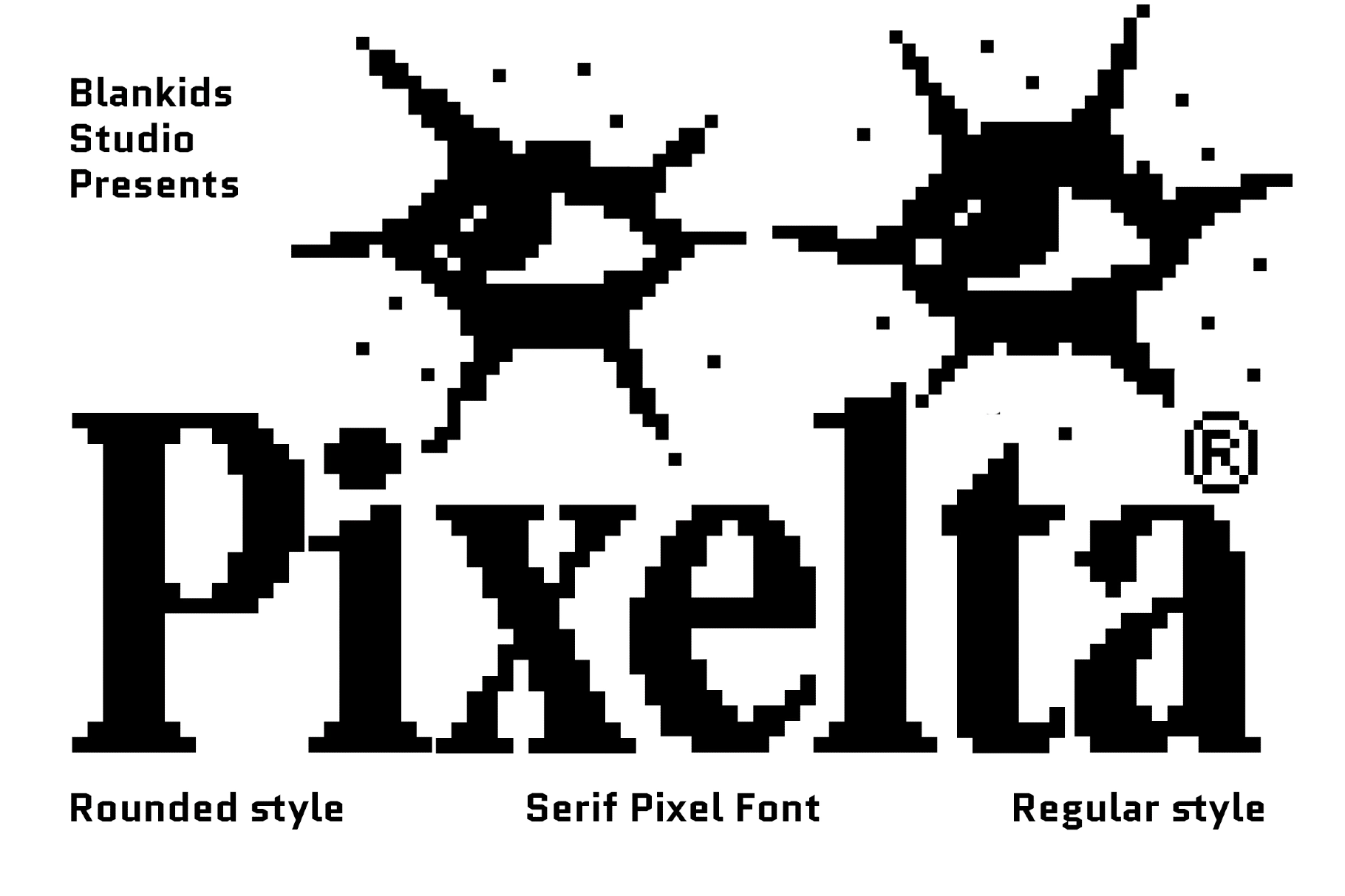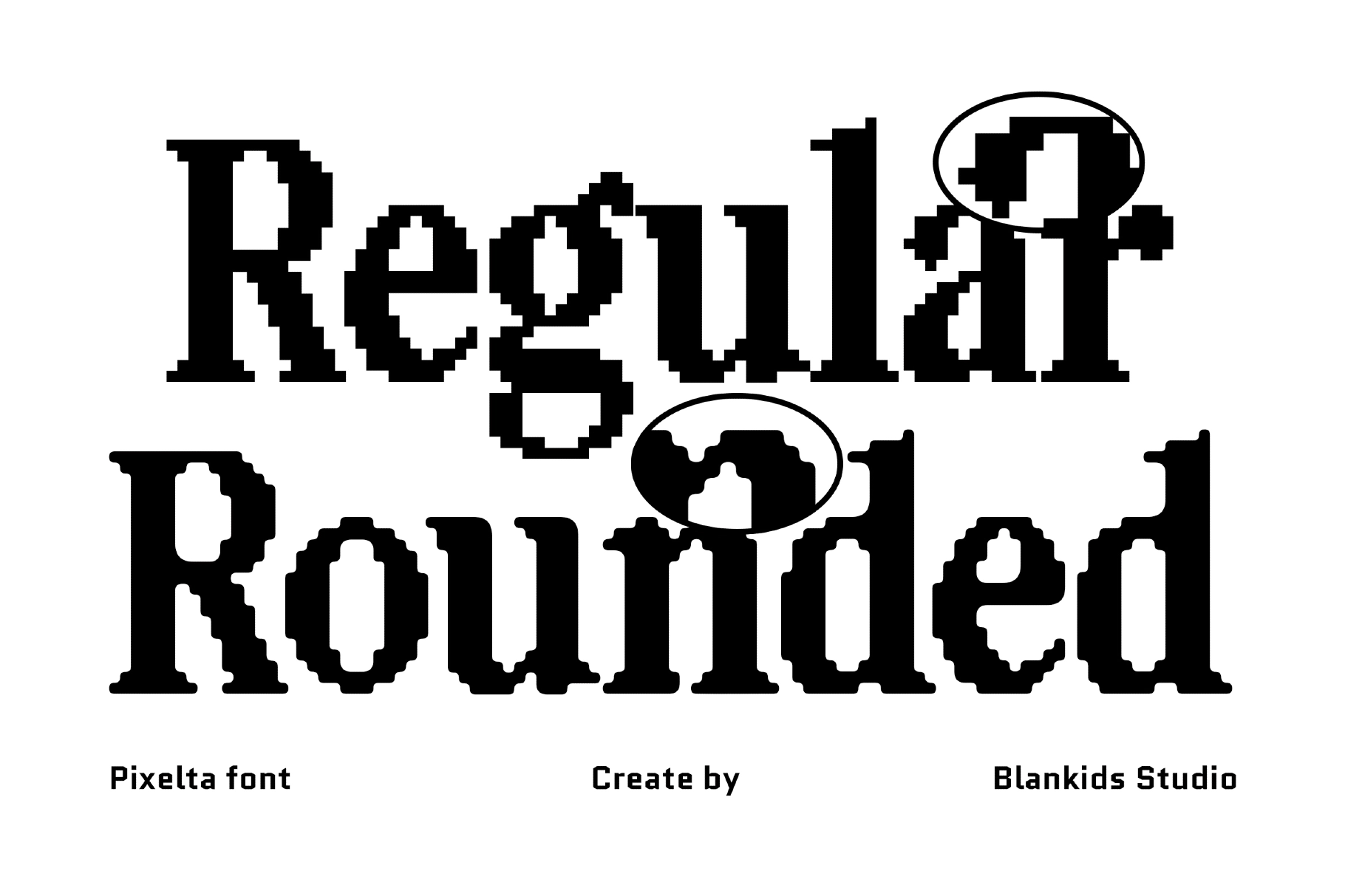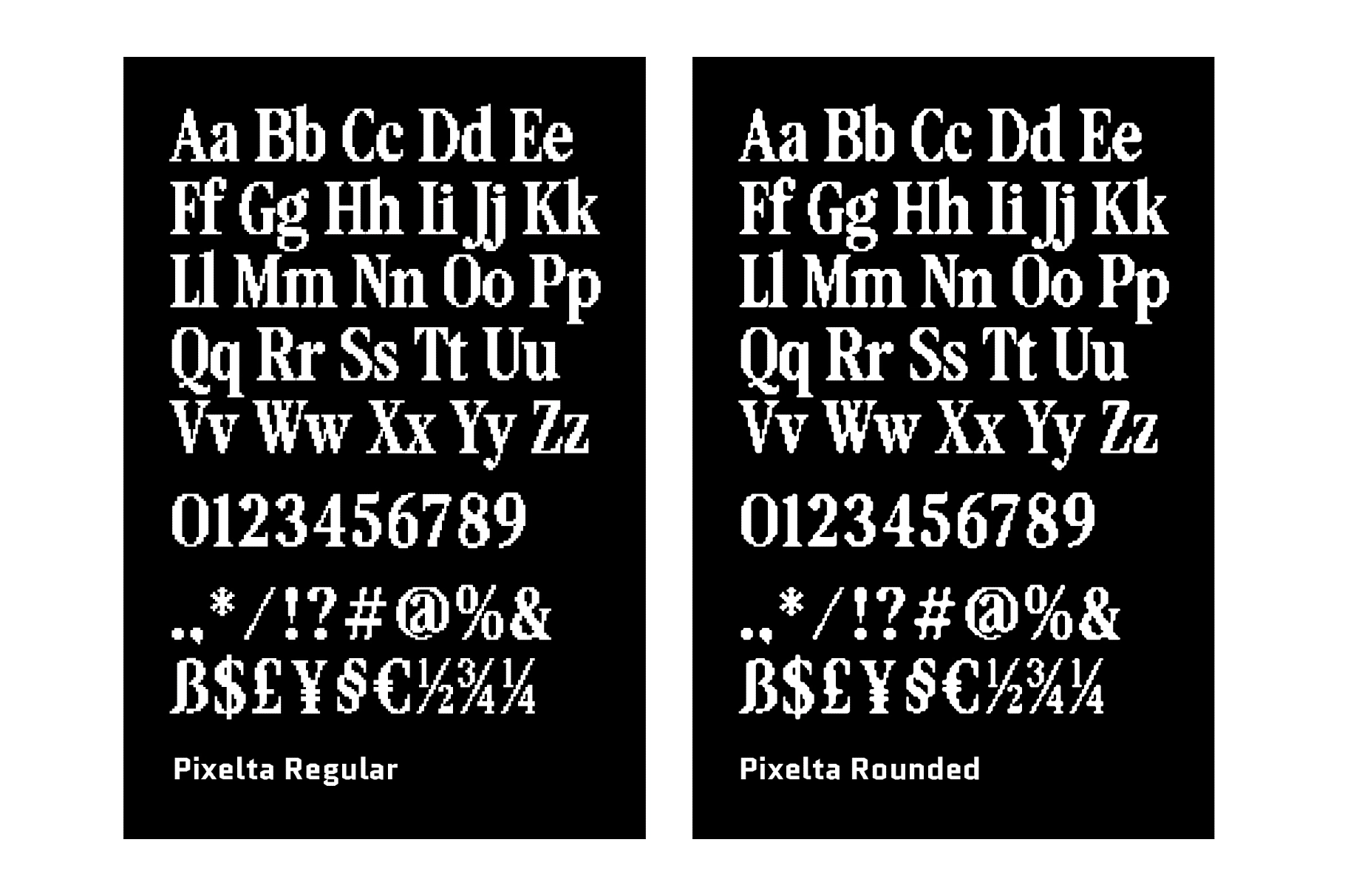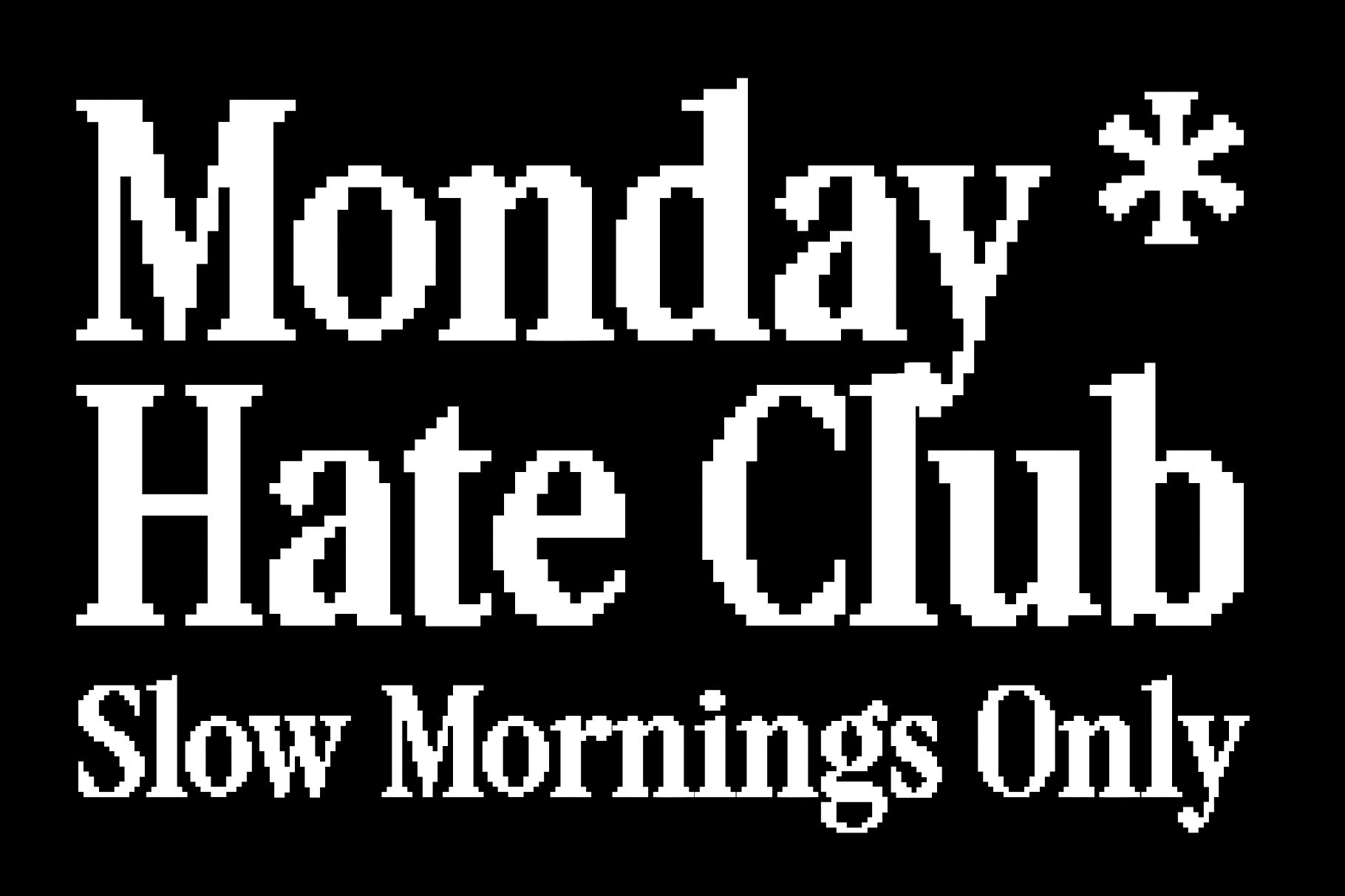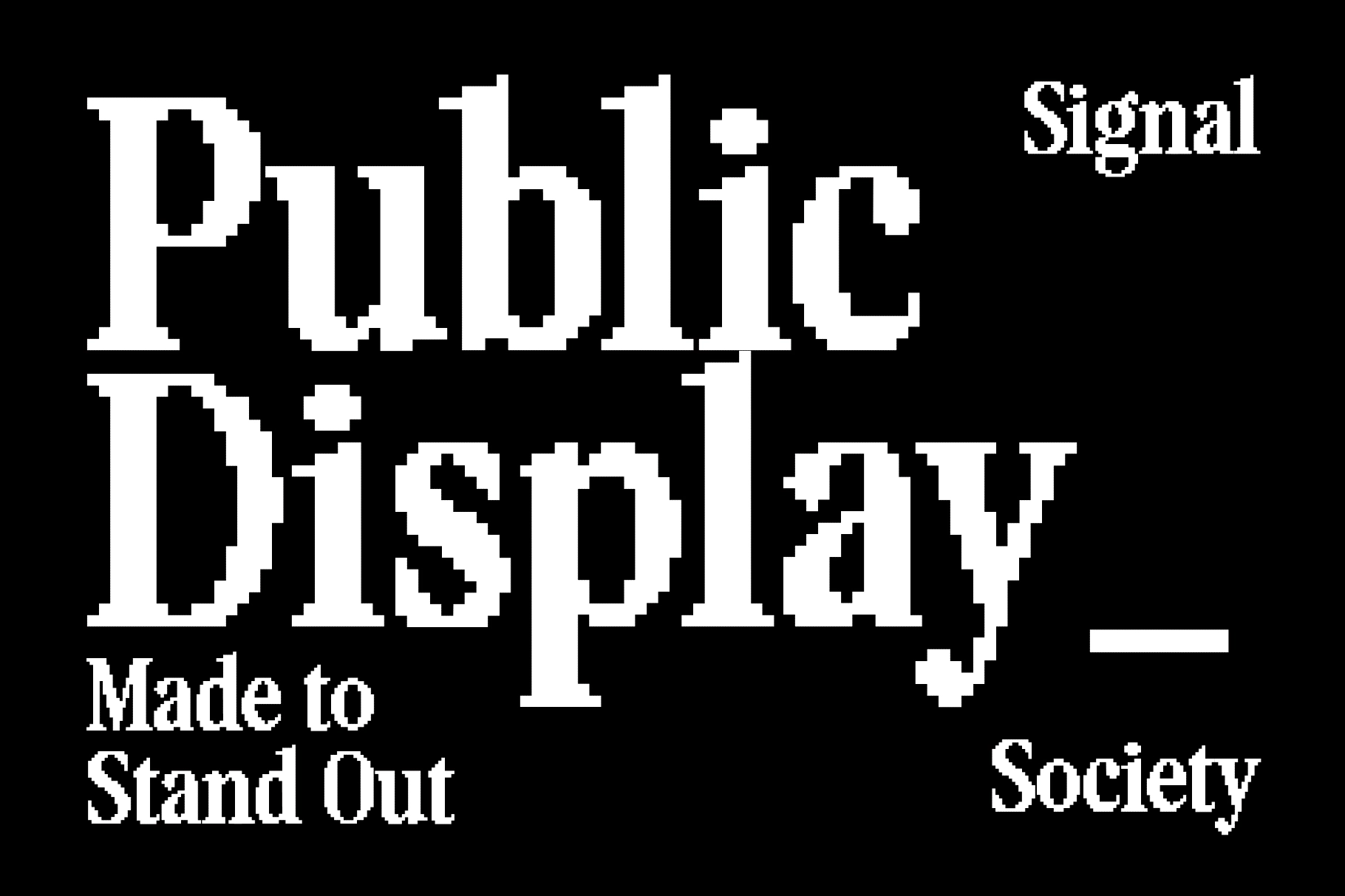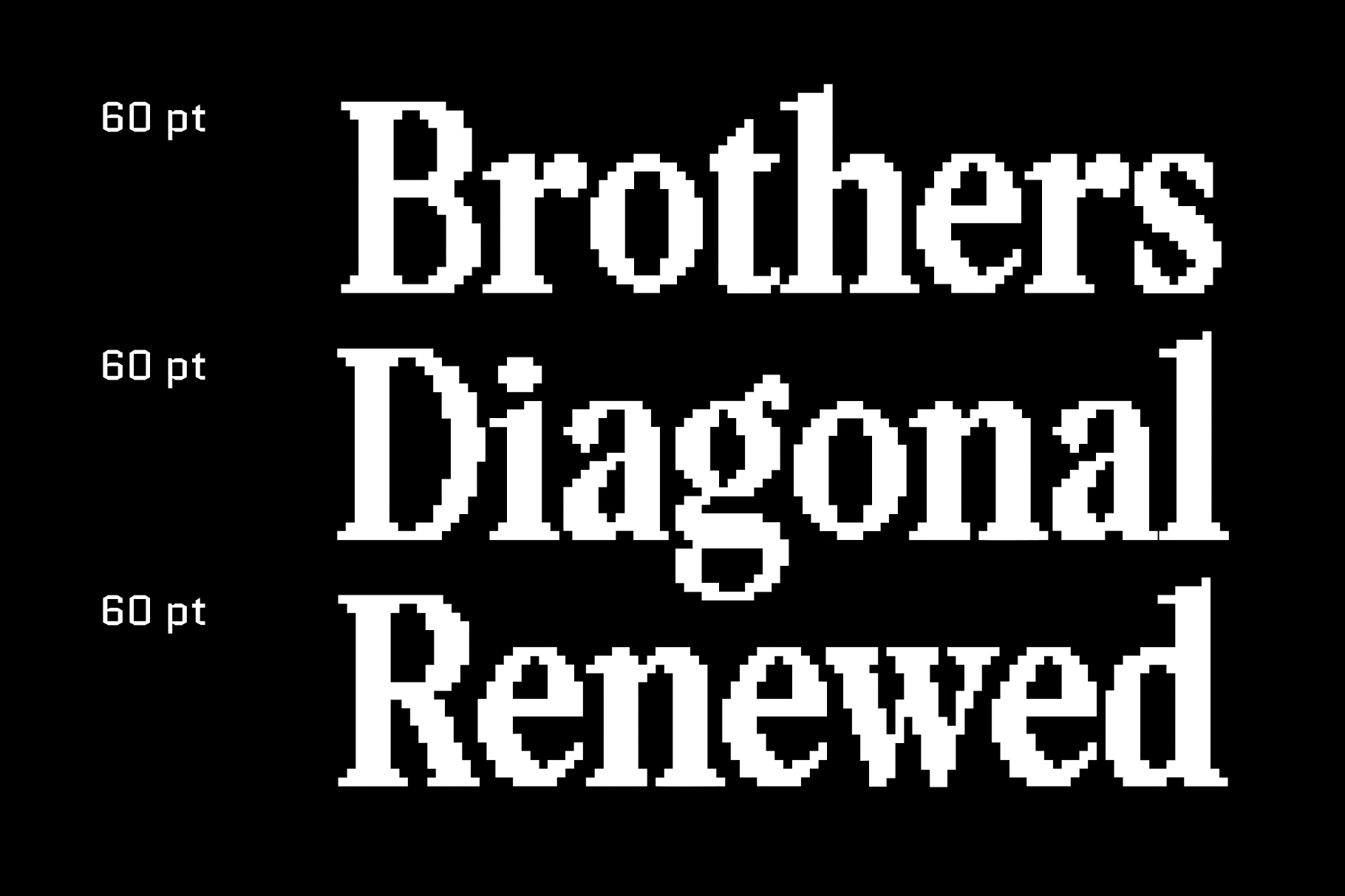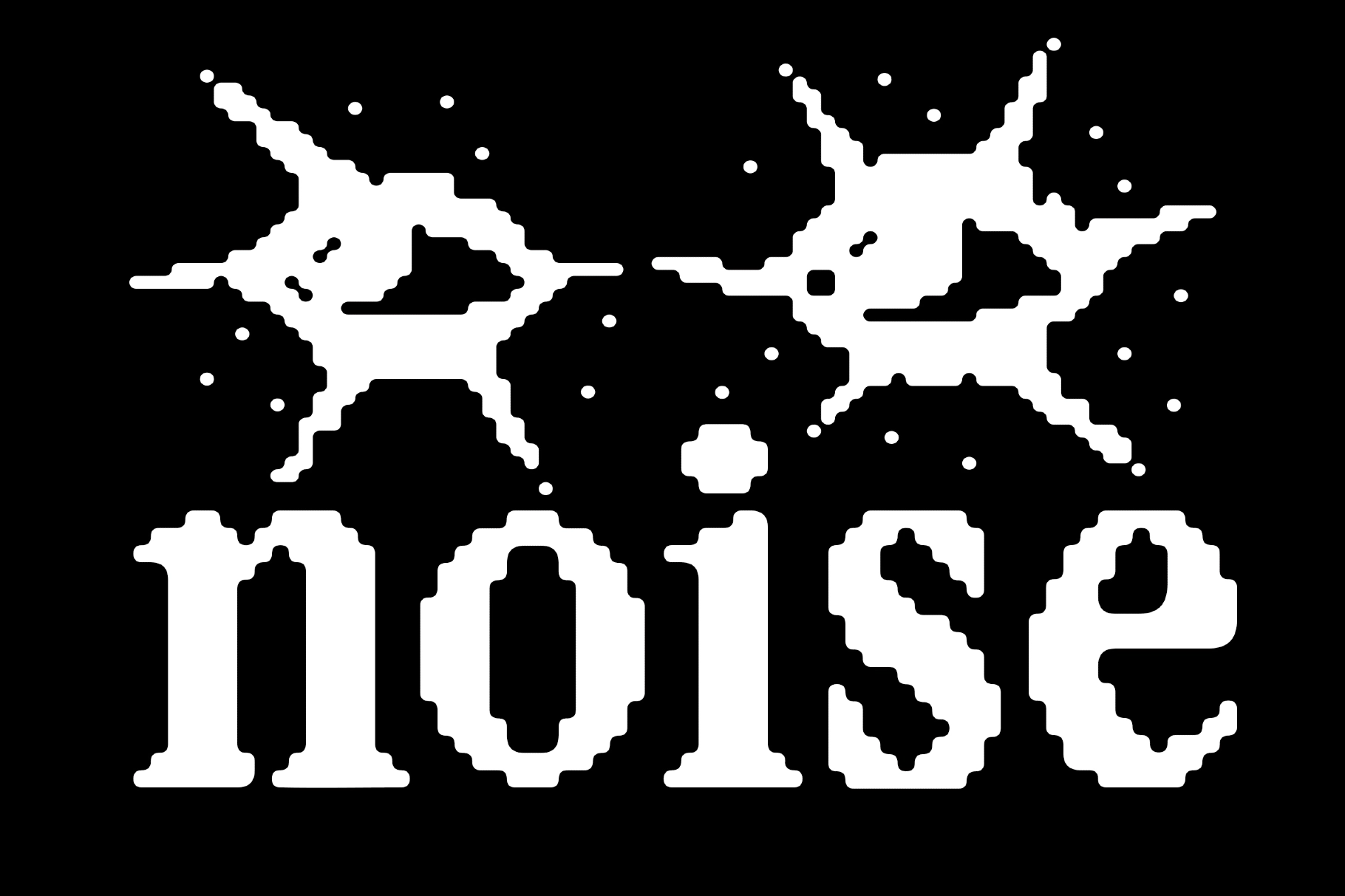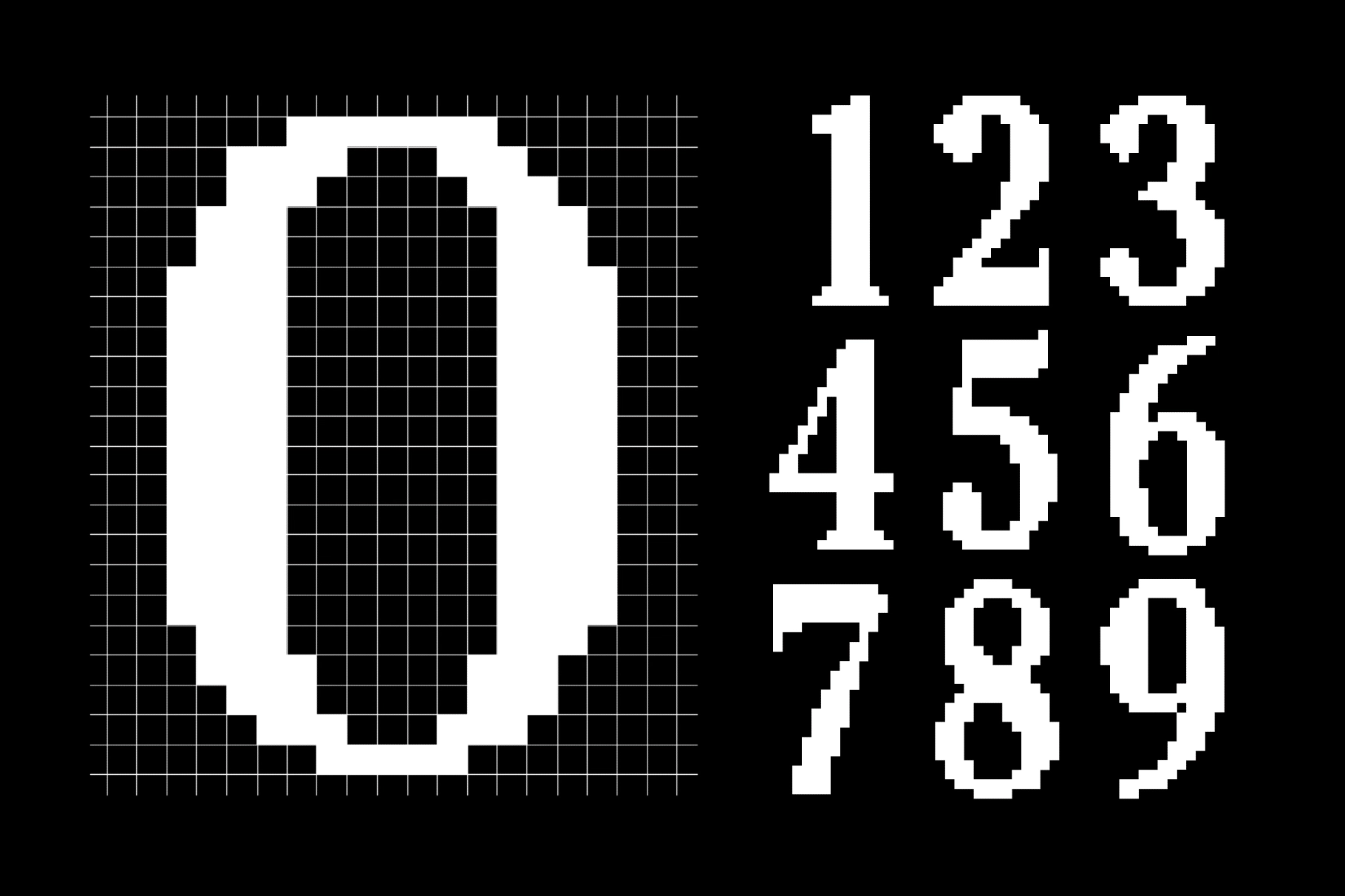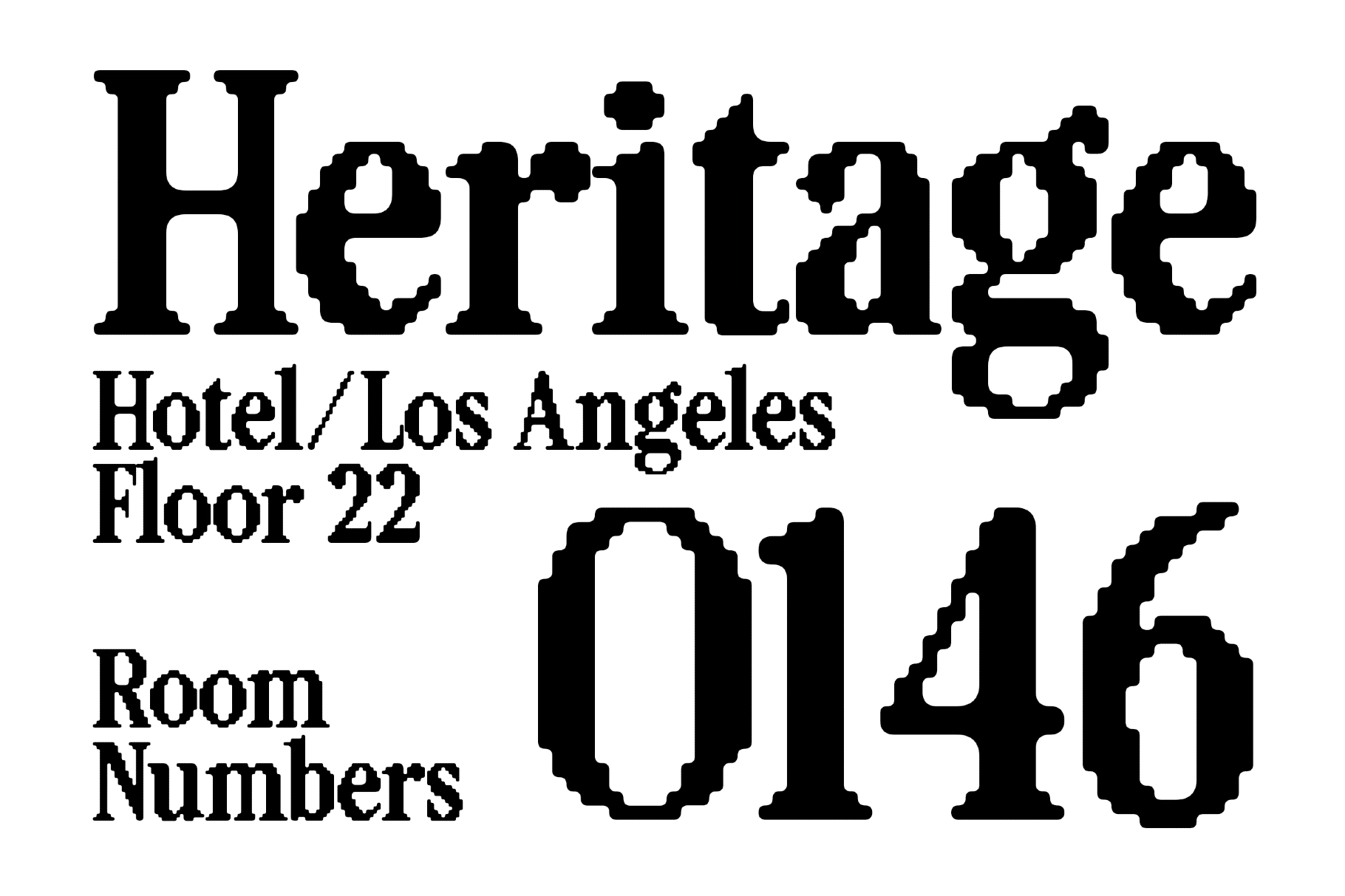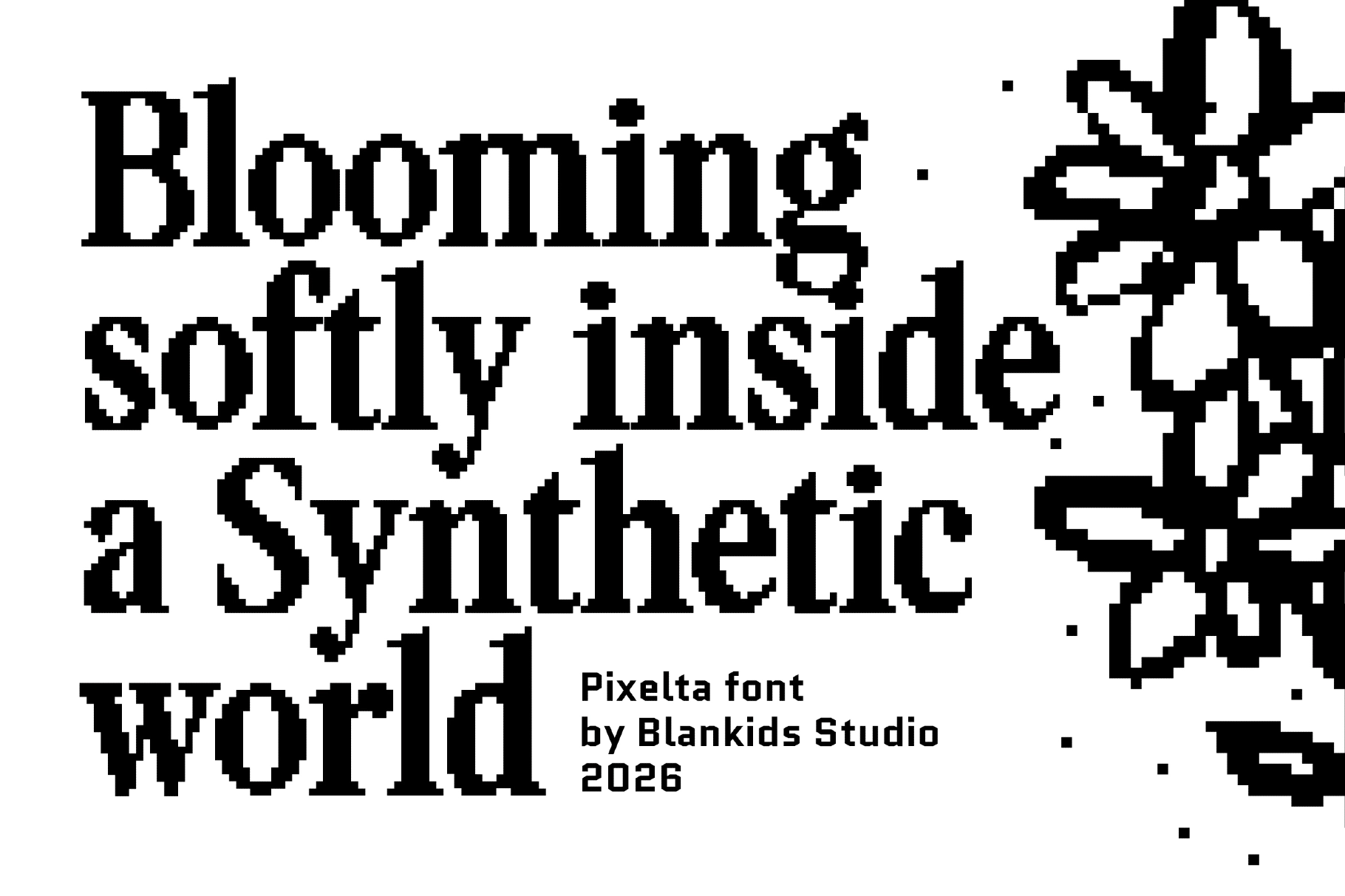
Pixelta – Bold Serif Pixel Font
Pixelta
A bold serif pixel font with crisp bitmap edges, sharp serifs, and strong arcade-era contrast. Its pixel construction gives headlines a retro digital look while the serif shapes add a more formal, editorial twist — like an old game menu that got a library card.
Pixelta includes Regular and Rounded styles, giving the typeface both a sharper vintage option and a softer graphic version. Use it for game titles, poster headlines, logo marks, album covers, streetwear graphics, packaging labels, zines, social media artwork, event flyers, website headers, signage, and more.